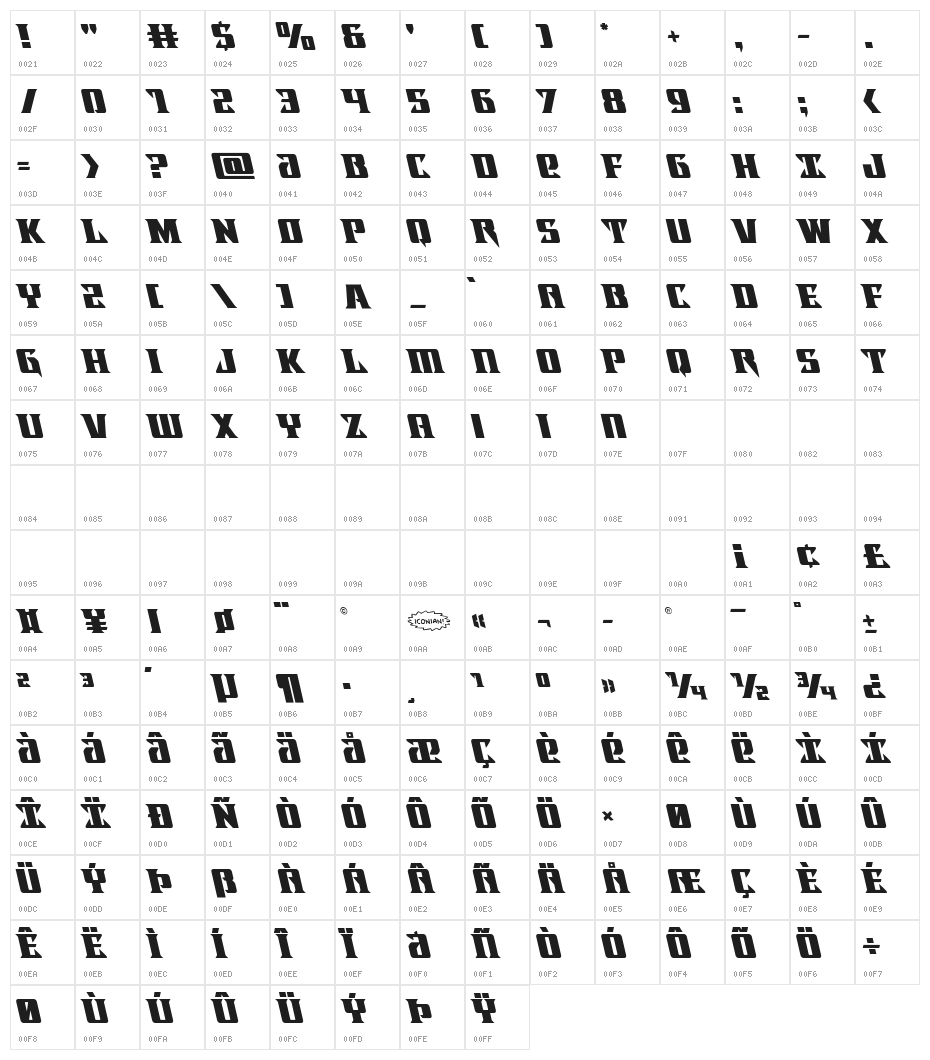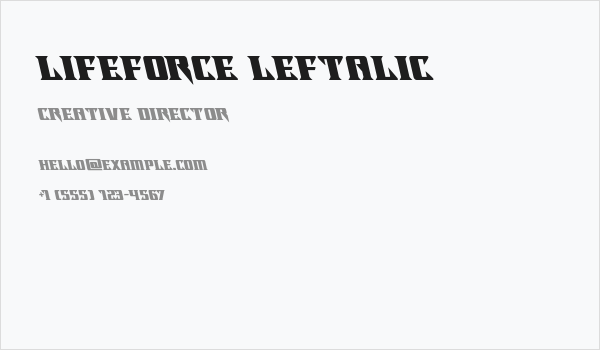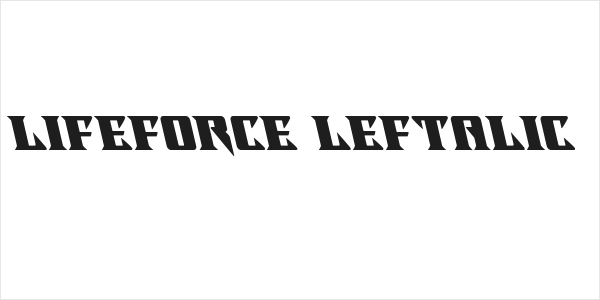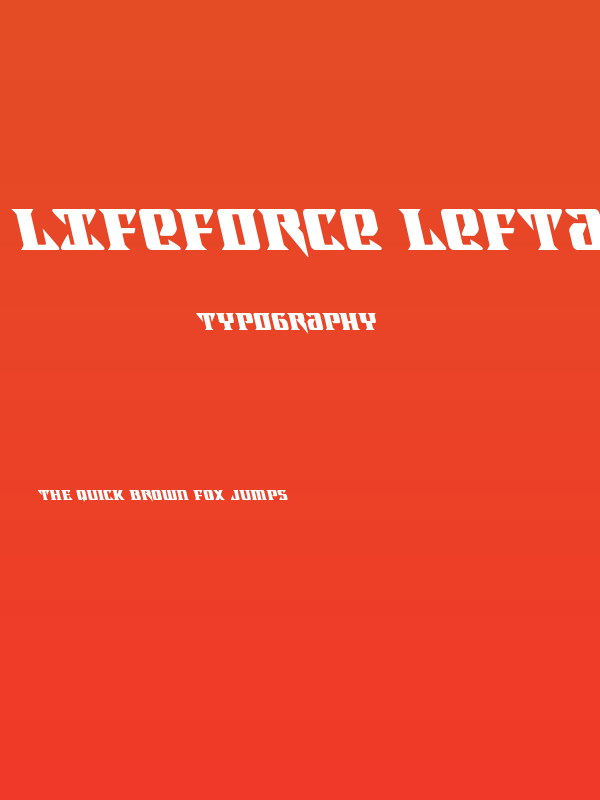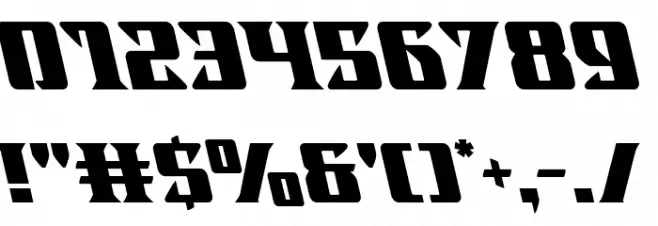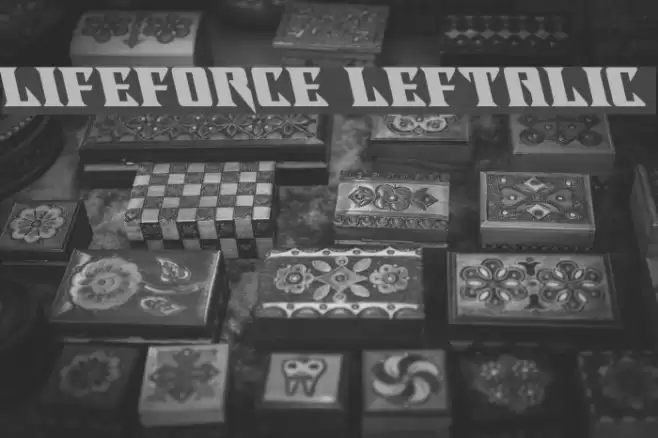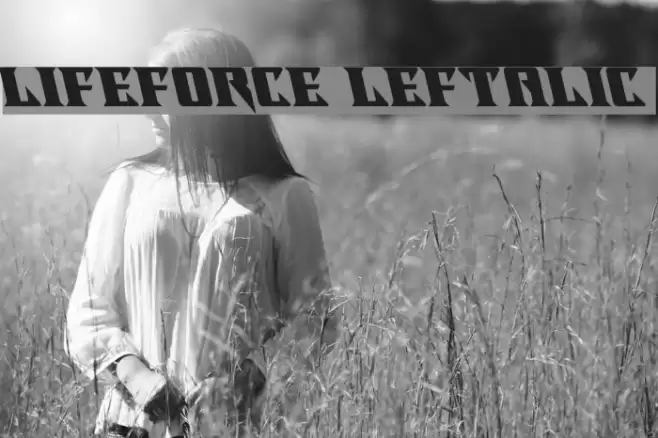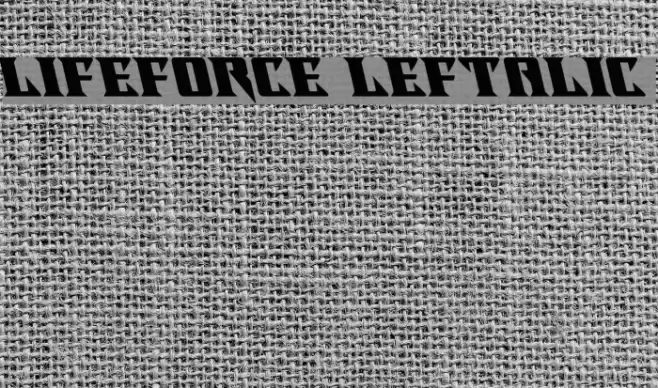
Lifeforce Leftalic Font
Lifeforce Leftalic Description
This font features a bold and dynamic design with sharp, angular edges and a distinct slant to the left, giving it a sense of movement and energy. The characters are heavily stylized, with unique cuts and angles that create a striking appearance. The uppercase and lowercase letters maintain a consistent style, while the numbers and special characters complement the overall aesthetic. The font's boldness and unique style make it ideal for attention-grabbing designs.
| Proposed Projects | Ideal for posters, logos, video game titles, and any project requiring a bold, impactful typeface. |